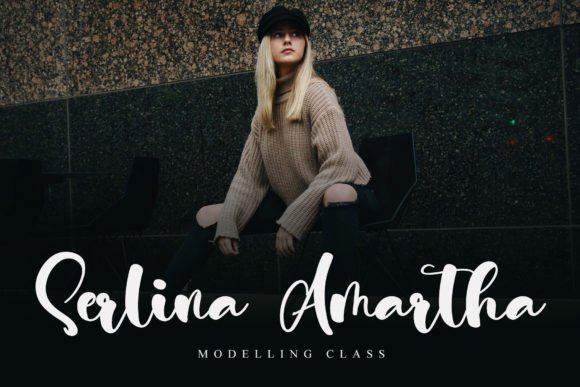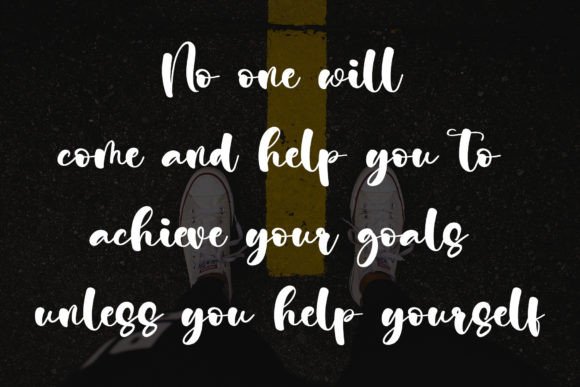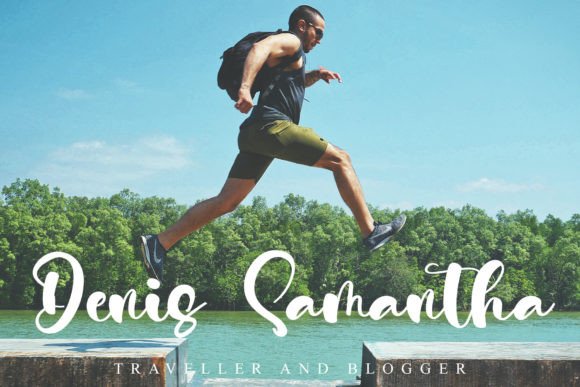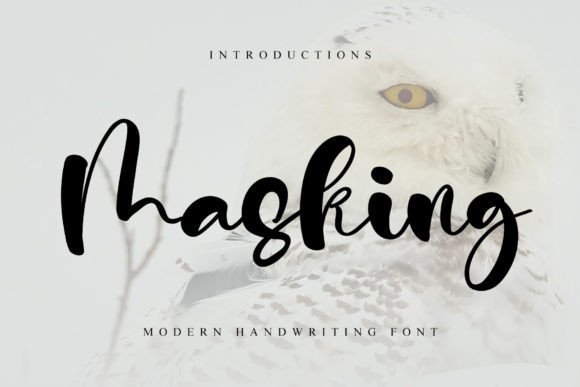
Introduction to Masking Font
Masking is a charming handwritten font that exudes warmth and friendliness.
With its smooth, flowing strokes and playful curves, it brings a sense of whimsy to invitations, packaging, and social media graphics Spread joy and delight with the inviting charm of Masking.
Key Features of Masking Font
Masking Font offers exceptional quality and versatility, making it a valuable addition to your design toolkit. Whether you’re creating for personal projects or commercial use, Masking Font delivers professional results.